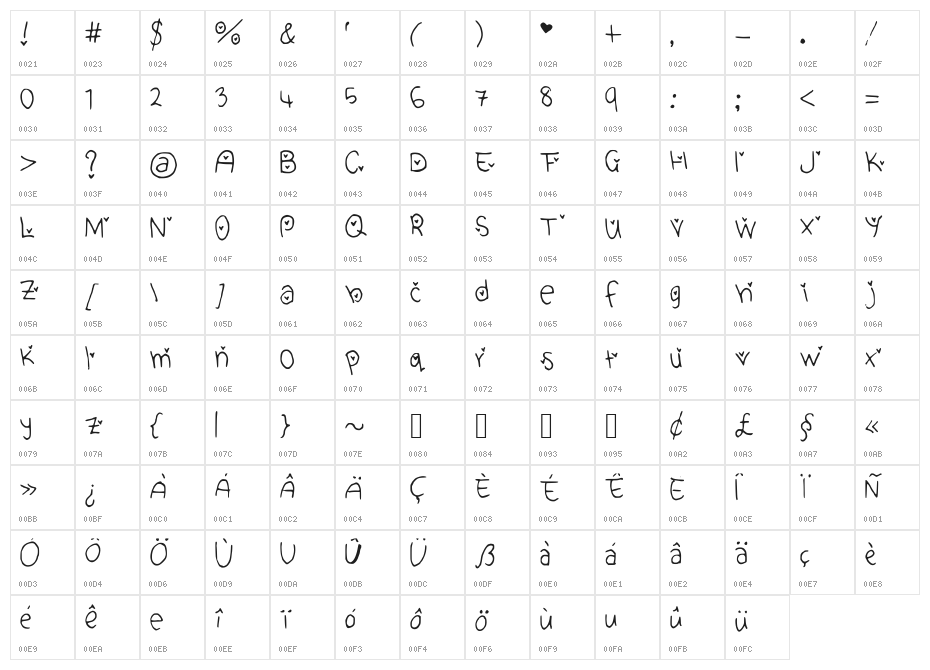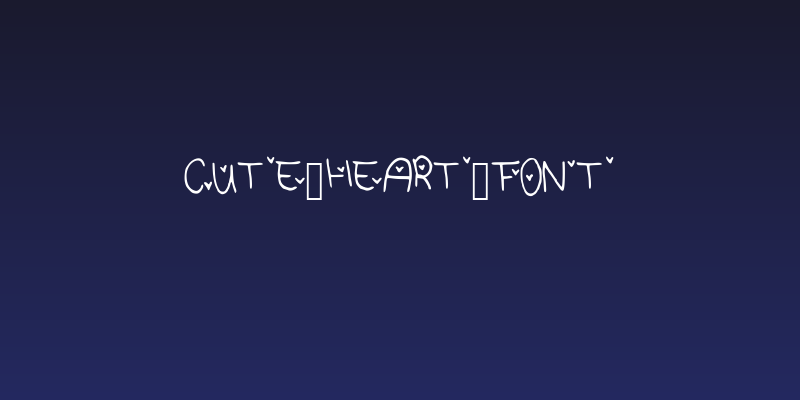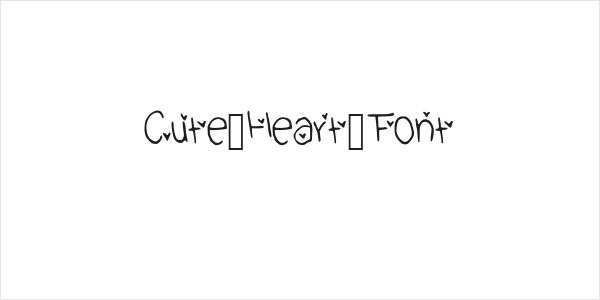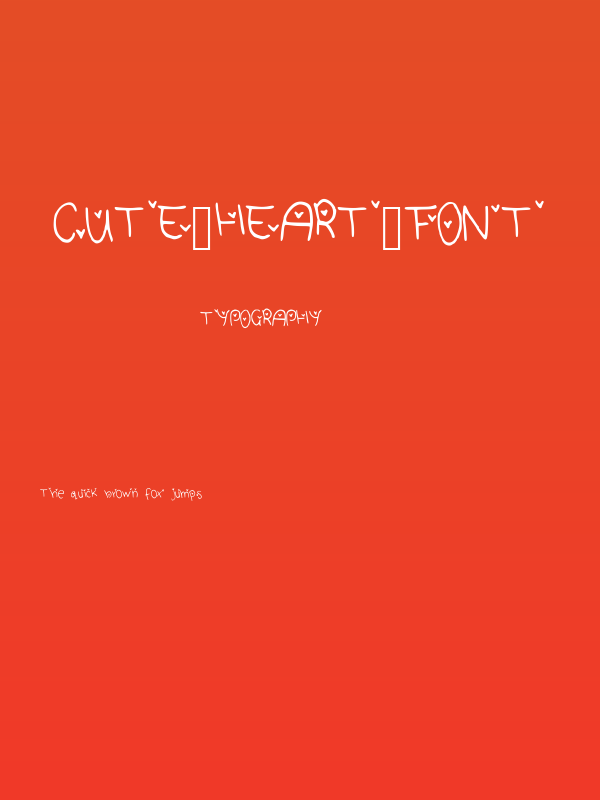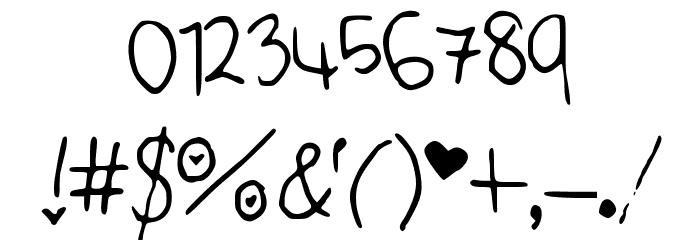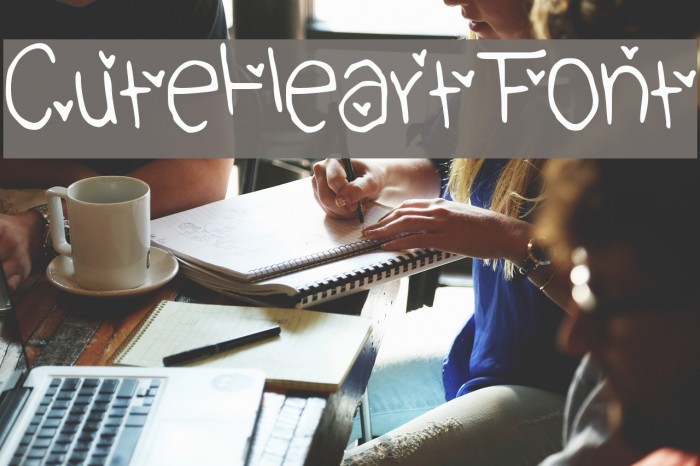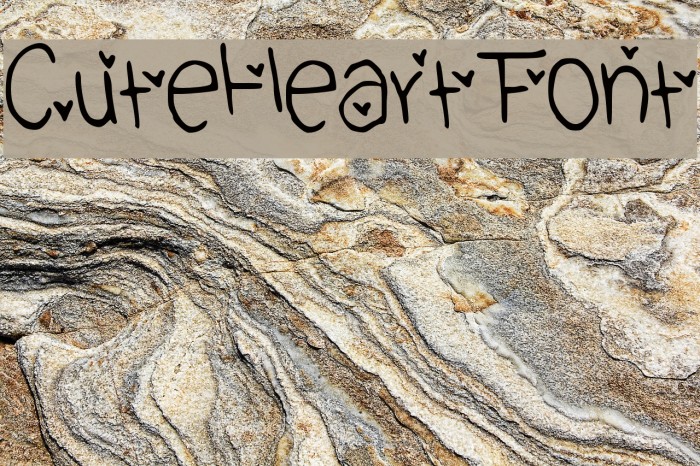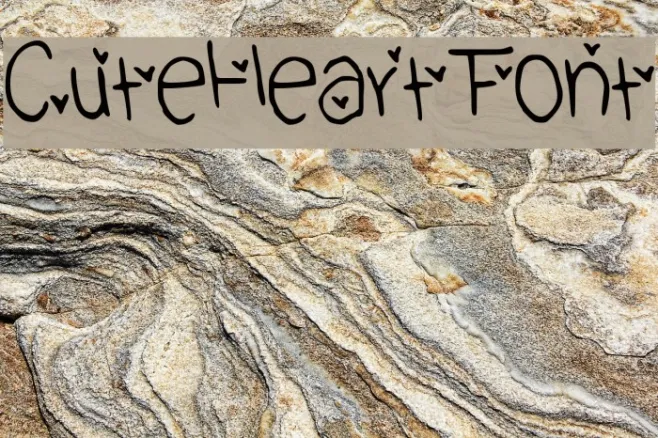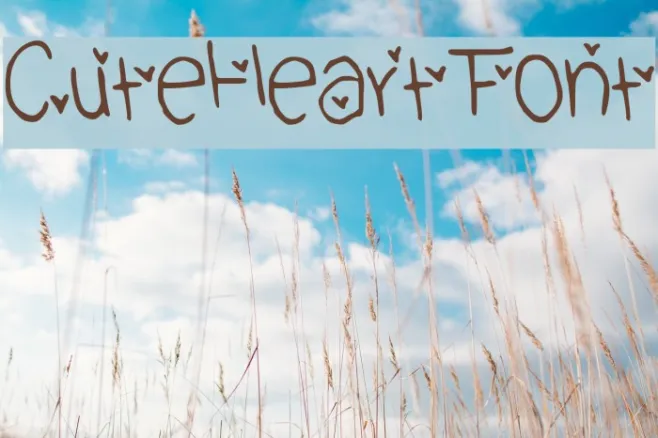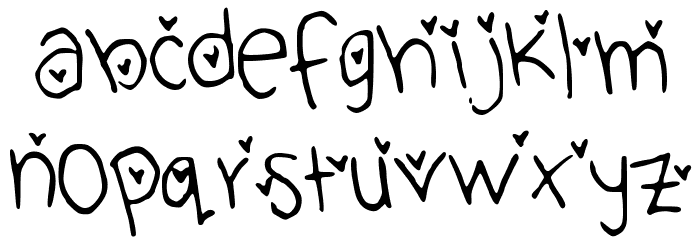
Cute_Heart_Font Font
Cute_Heart_Font Description
This playful and whimsical font features heart motifs integrated into each character, adding a charming and romantic touch. The letters are rounded and slightly irregular, giving a hand-drawn appearance that enhances its friendly and approachable style. The uppercase and lowercase letters maintain a consistent design, with hearts often replacing dots on 'i' and 'j' or adorning the tops of letters. Numbers and special characters follow the same playful theme, making this font ideal for projects that require a touch of fun and creativity.
| Proposed Projects | Ideal for Valentine's Day cards, wedding invitations, children's book covers, playful branding, and social media graphics. |